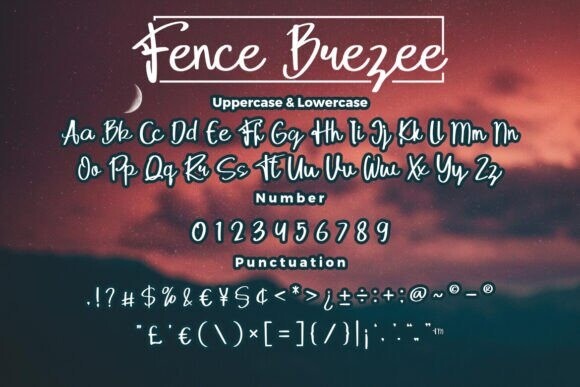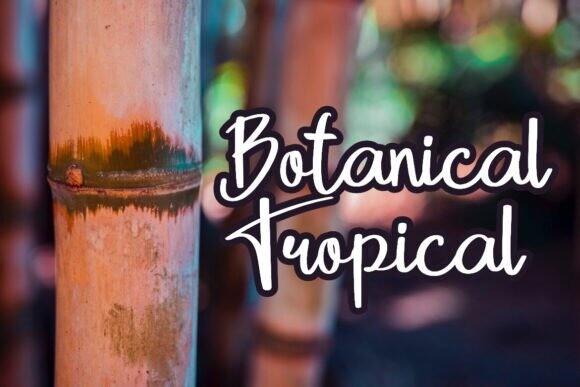
Fence Brezee Font
Designer: Bayuktx
Fence Breeze Font is a flowing handwritten font, described by an elegant touch, perfect for your favorite projects. Fall in love with its incredibly distinct and timeless style and use it to create spectacular designs!